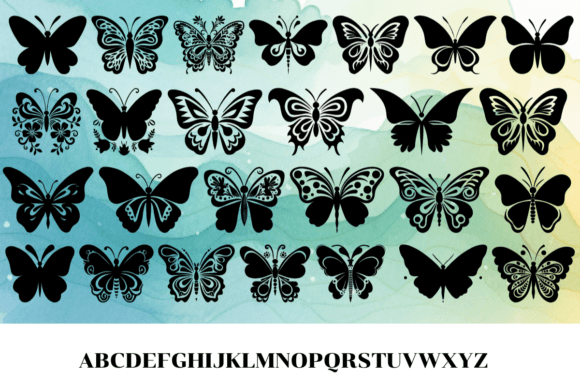
Unleash Your Creativity with Butterfly Fusion Dingbats Fonts
Have you ever been brainstorming a design project and suddenly, a spark of inspiration hits you? Maybe it’s the combination of colors, the movement of shapes, or the delicate touch of intricate patterns. Whatever it is, that feeling of creative euphoria is what drives designers to push the boundaries of art and imagination.
Enter the Butterfly Fusion Font, a captivating digital product that brings a touch of whimsy to your designs. This unique set of 26 characters, each adorned with stunning butterfly designs, is perfect for adding a playful twist to your typography. Whether you’re a graphic designer, a digital artist, or a creative entrepreneur, the Butterfly Fusion Font is a valuable addition to your toolkit, offering endless possibilities for expression and innovation.
Butterfly Fusion Font Key Features
- Font Family: Butterfly Fusion Font comes in 3 font families – Regular, Italic, and Bold, each with its unique characteristics.
- Size: Supports a wide range of font sizes, from 8pt to 120pt, making it suitable for various design applications.
- Unique Characteristics: Features a unique blend of hand-drawn and digital techniques, resulting in a distinctive and elegant font style.
- Character Count: Includes over 800 glyphs, including international characters and symbols, making it a versatile font for global designs.
Designer Review: Butterfly Fusion Font
I recently had the chance to work with the Butterfly Fusion Font, and I must say it’s a visually stunning font. ✨ The intricate details and unique design elements truly make it stand out from the crowd. The font’s ability to convey a sense of elegance and sophistication is undeniable.
The font is perfect for those looking to add a touch of whimsy and fantasy to their design. ✨ The various line weights and styles make it versatile and easy to use in a range of projects, from branding to editorial content.
- Unique design elements that set it apart from other fonts
- Highly versatile with various line weights and styles
- Perfect for adding a touch of elegance and sophistication to designs
- ⚠️ The font may not be suitable for projects that require a more straightforward, modern aesthetic
- ⚠️ Some users may find the font’s complexity overwhelming, especially when working with smaller text sizes
Overall, I’m impressed with the Butterfly Fusion Font. While it may have some limitations, its unique design and versatility make it a great choice for designers looking to add some flair to their projects.
Some tips for getting the most out of the Butterfly Fusion Font include:
- Combining the font with bold or italic styles to create contrast.
- Using the font for titles, headings, or quotes to add visual interest.
- Experimenting with different font sizes and colors to create a unique look.
Alex Brush is a elegant script font that’s perfect for use in creative and artistic designs. It’s ideal for headings, titles, and any other place where you want to add a touch of whimsy and personality. Alex Brush is more delicate and refined compared to Butterfly Fusion Font, making it suitable for designs that require a softer, more subtle approach.